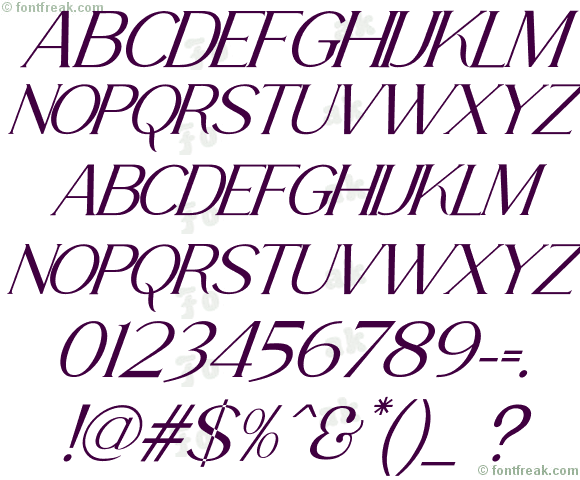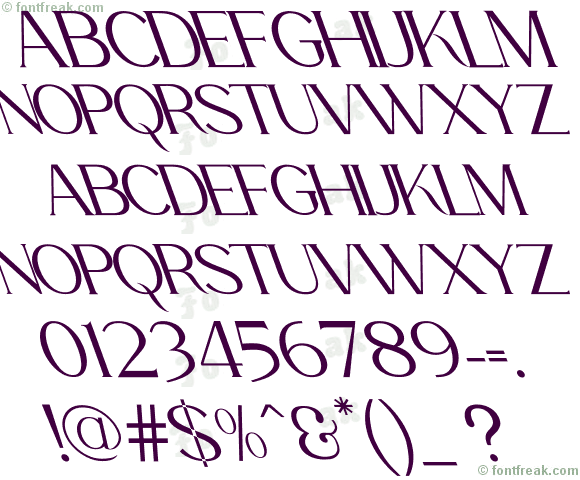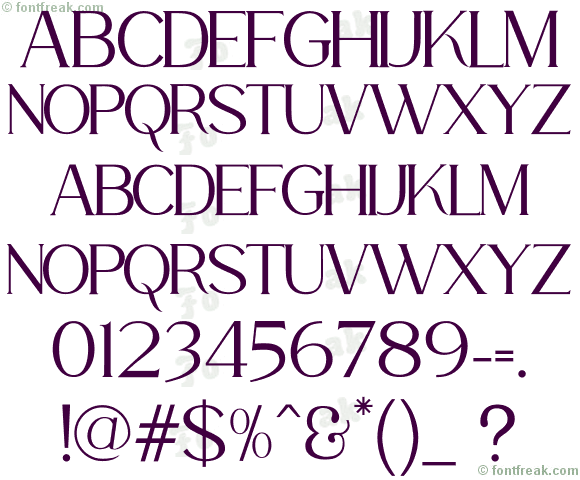
La Fleur
La Fleur Oblique
La Fleur Italic
La Fleur by Kong Font is a stunning display typeface that captures the essence of elegance and creativity. This font boasts a distinctive serif style, characterized by its oblique and italic forms that add a touch of sophistication. The strokes exhibit moderate contrast, with delicate flourishes that enhance its decorative appeal. The spacing is thoughtfully arranged to ensure readability while maintaining a graceful aesthetic, making it an excellent choice for various design projects.
Ideal for wedding invitations, La Fleur adds a romantic flair that sets the tone for special occasions. Its graceful curves and stylish serifs make it suitable for branding, especially for boutiques and artisanal businesses looking to convey a sense of luxury and charm. Additionally, this font shines on restaurant menus, where its elegant presentation can elevate the dining experience. Graphic designers will find it a versatile option for movie posters, allowing them to create captivating visuals that draw in audiences. Content creators can also leverage La Fleur’s unique style for social media graphics that require a touch of flair.
In a market saturated with fonts, La Fleur stands out due to its combination of elegance and versatility. Whether you're designing a romantic invitation or a chic branding project, the La Fleur font free download provides the perfect solution to infuse your work with artistic sophistication. Its distinctive style is sure to leave a lasting impression, making it an invaluable addition to any designer's toolkit.